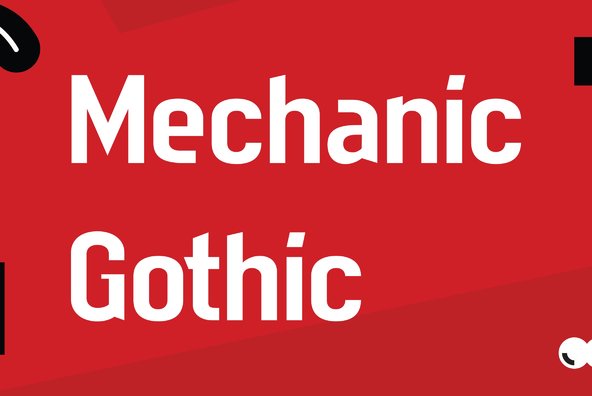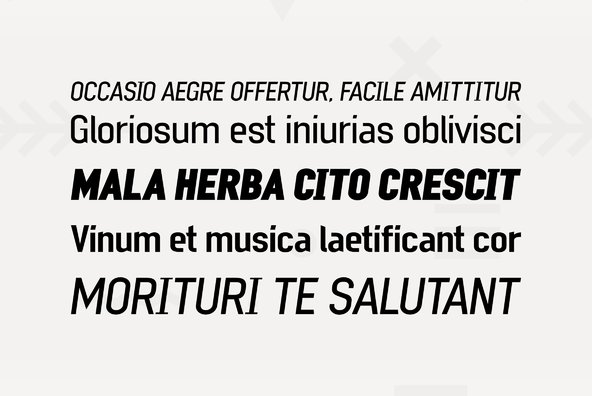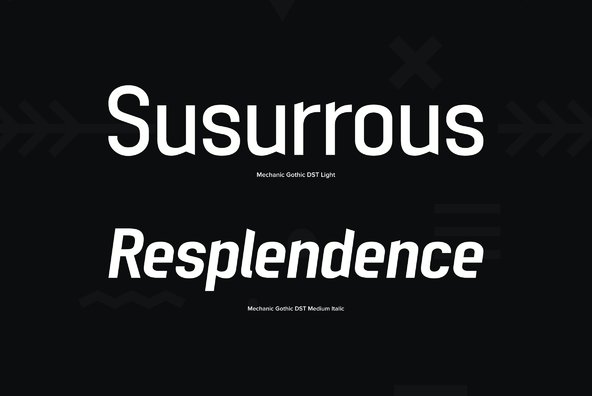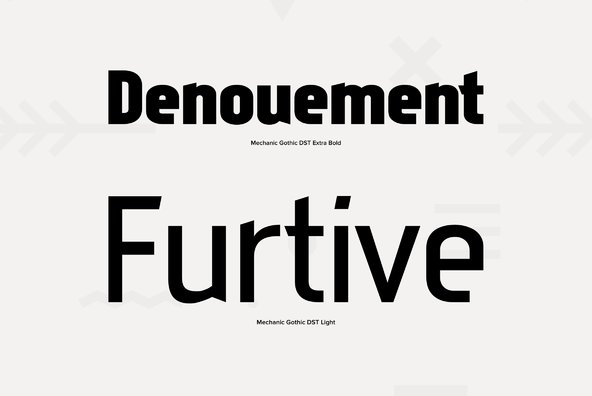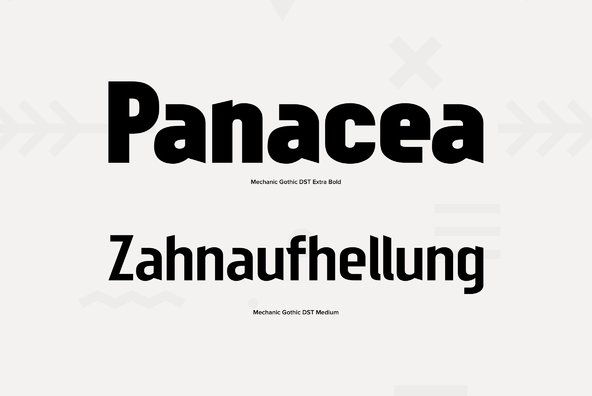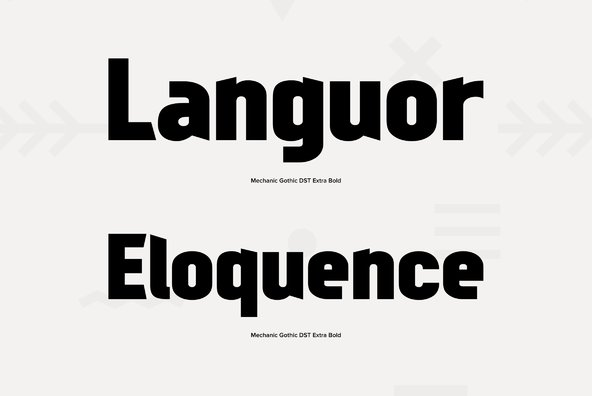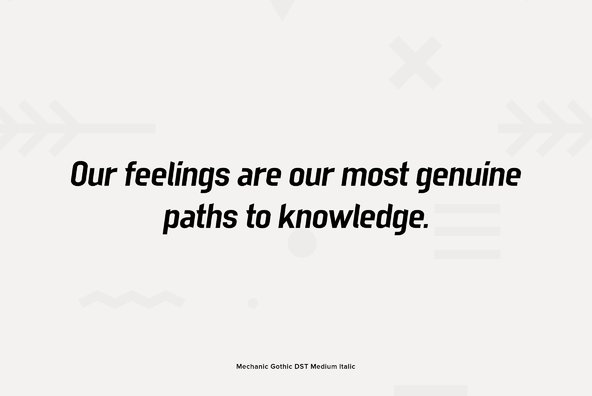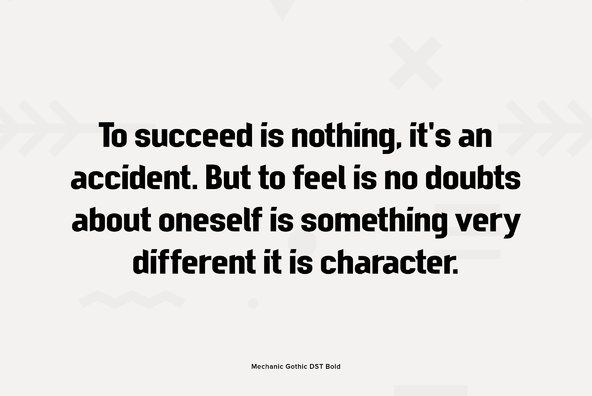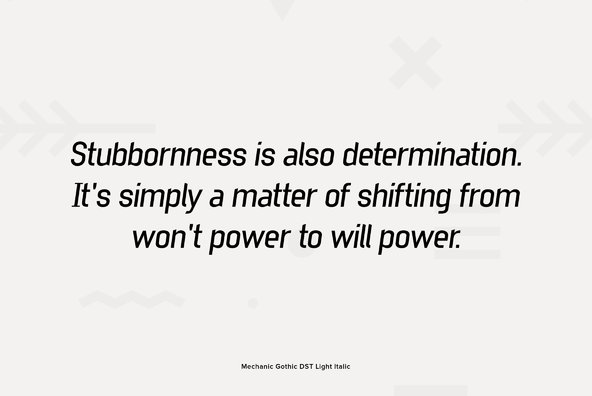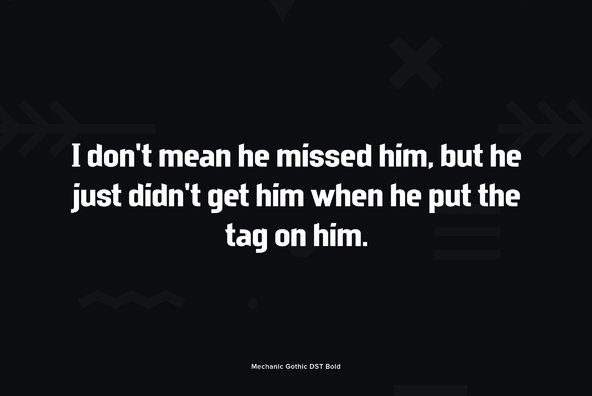
Mechanic Gothic
Designed by Darren Scott. Based on character shapes with origins rooted in the work of 19th Century American wood type makers, DST Mechanic Gothic draws influence from the poster types found in the impactful advertising during the Industrial revolution. It has several classic condensed sans-serif elements, and although Darren Scott has injected a contemporary twist to refresh the character shapes, this typeface does not deny it's roots. Darren Scott's original Mechanic Gothic design has been adapted and re-crafted to give a more conventional range of weights and italics for this exclusive re-release.